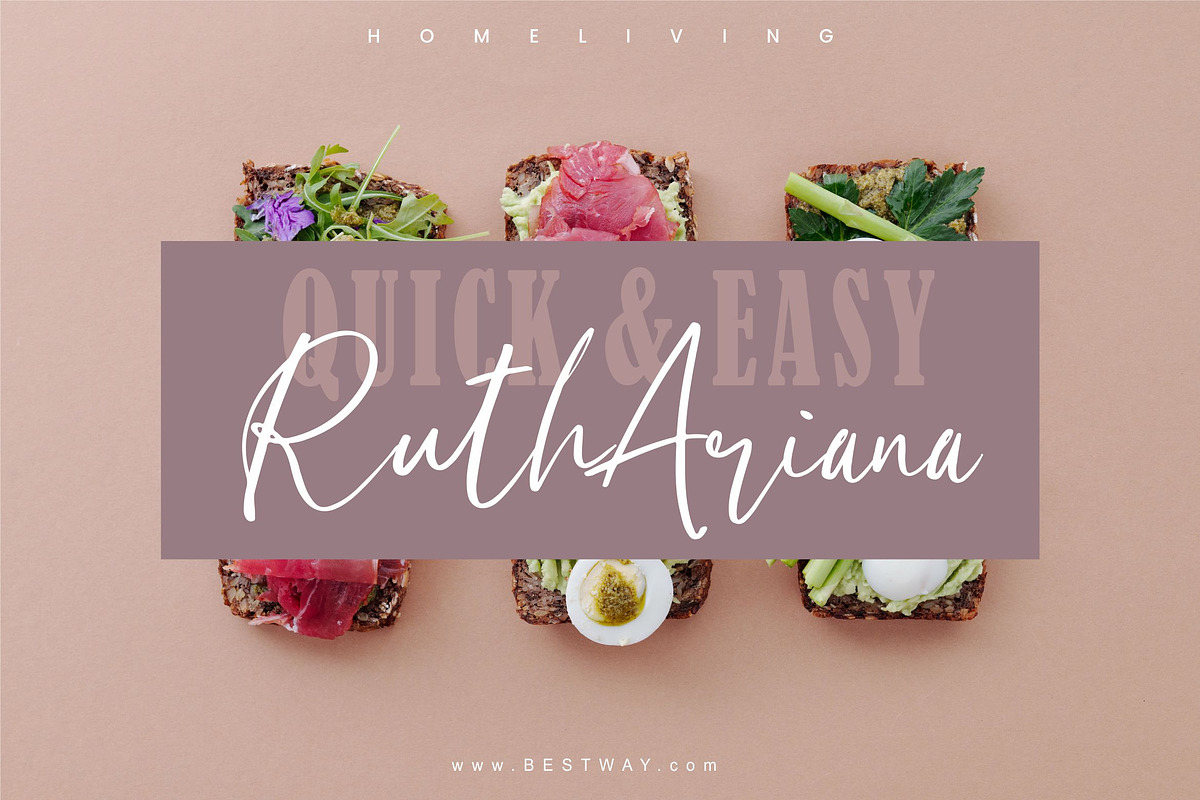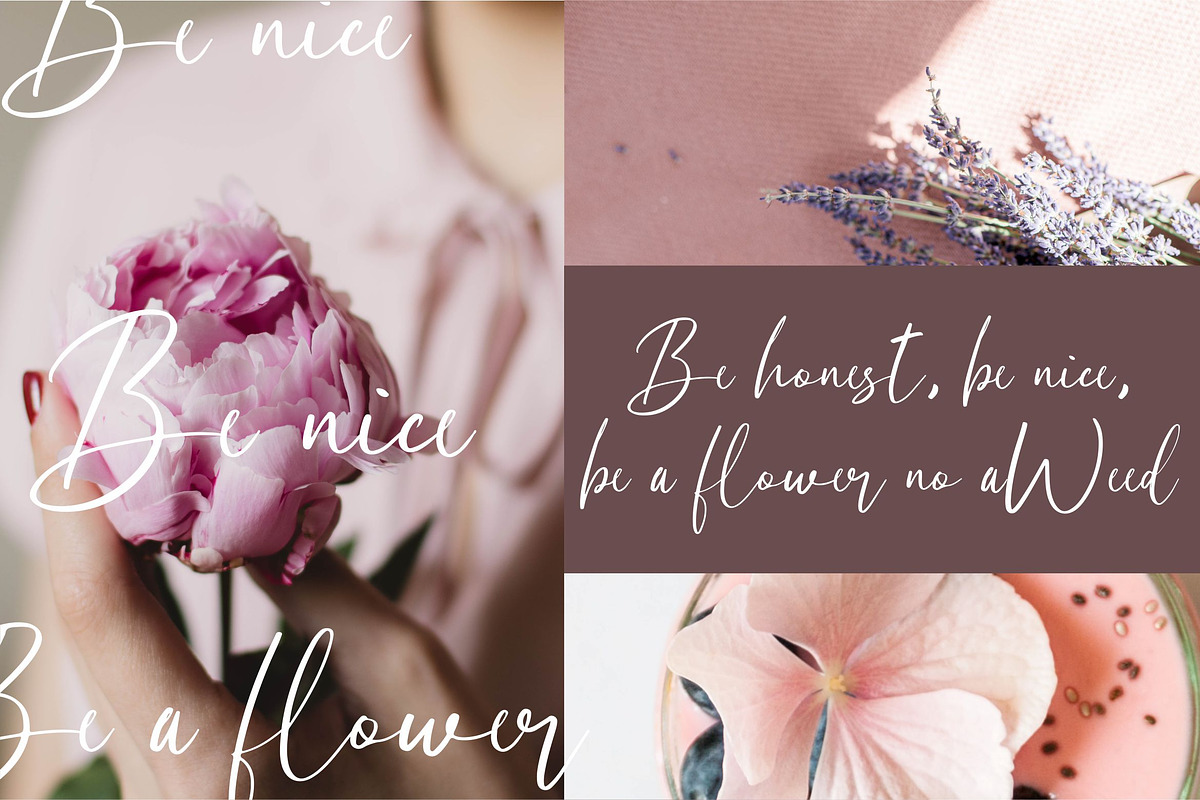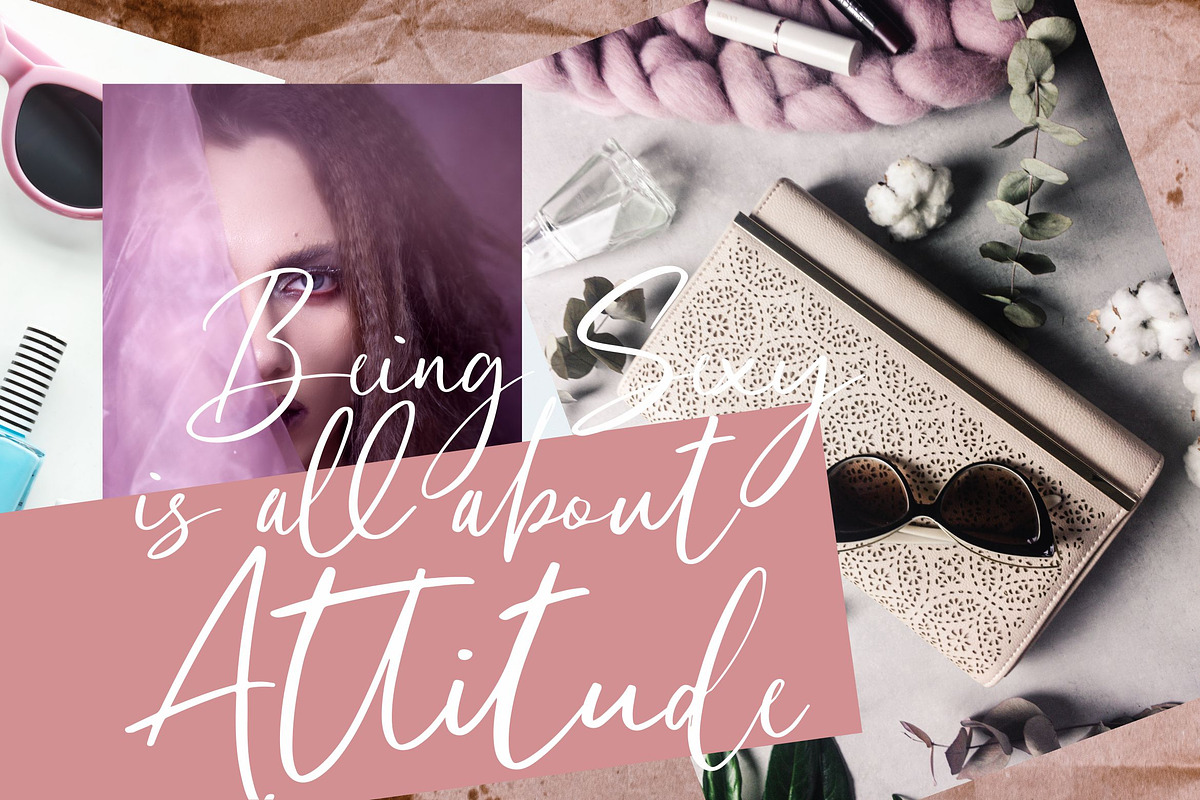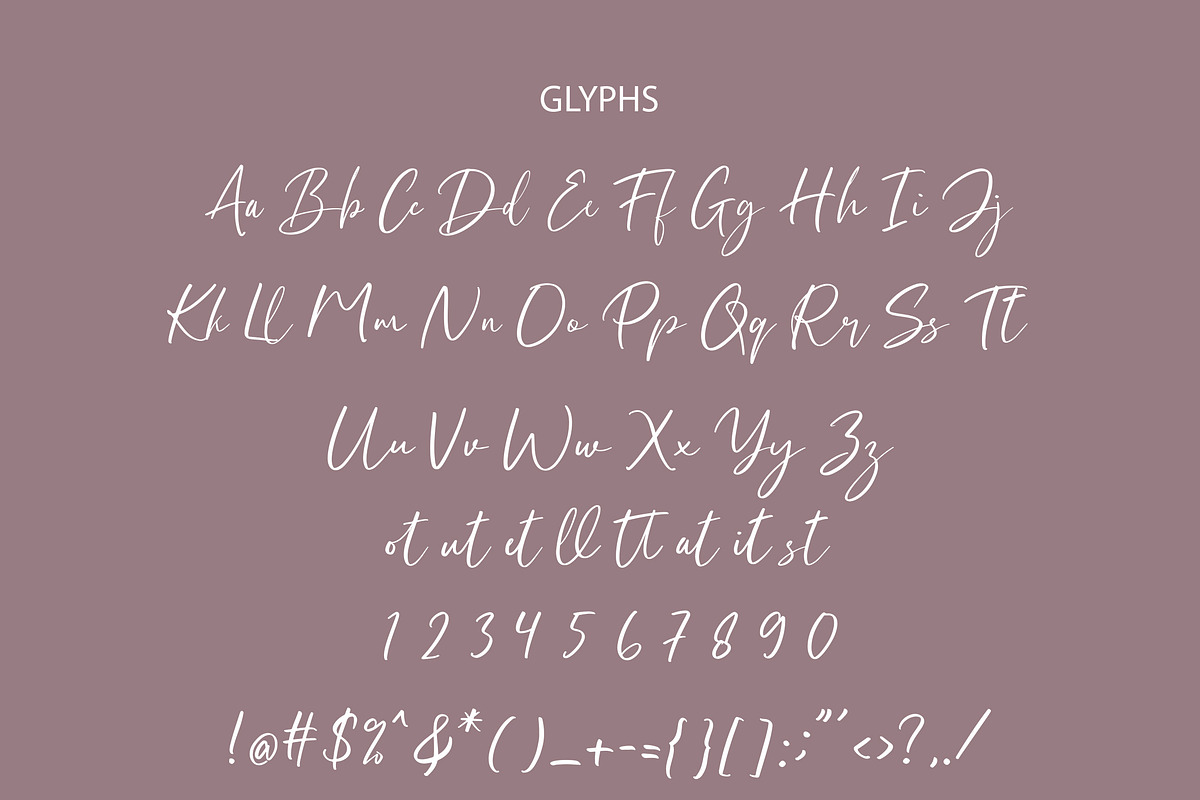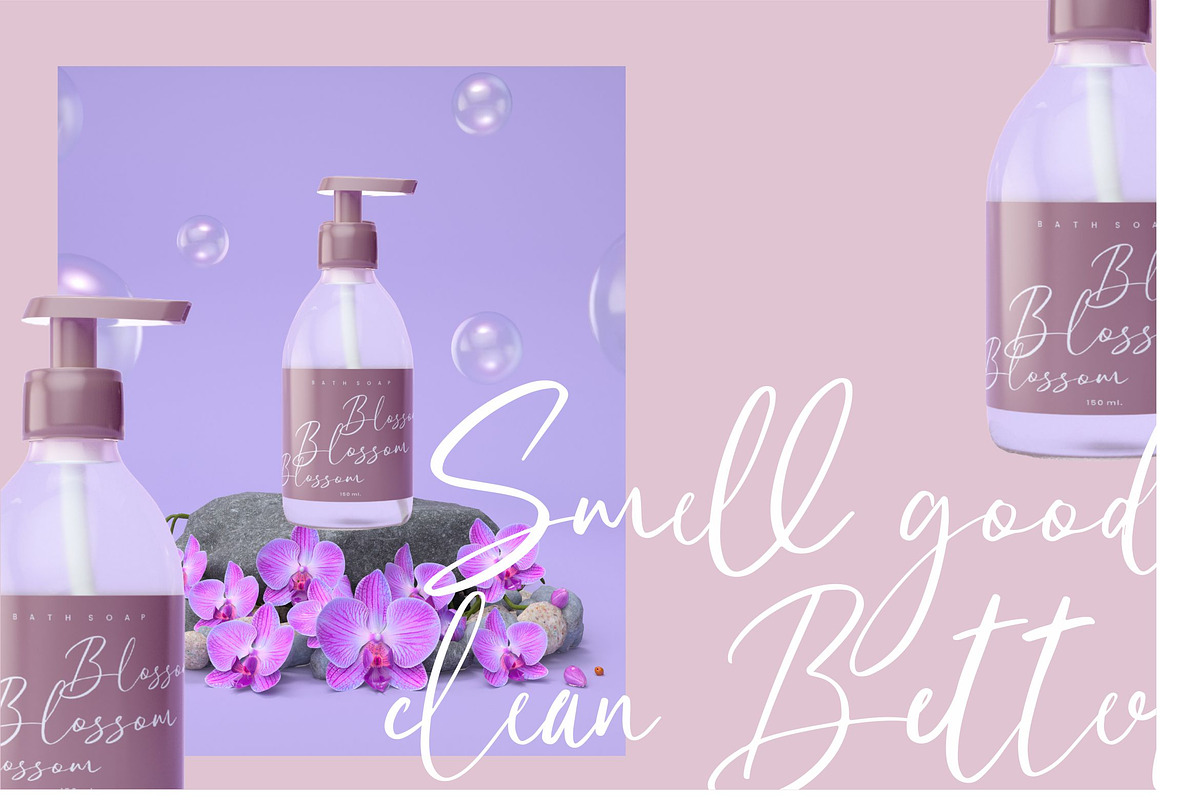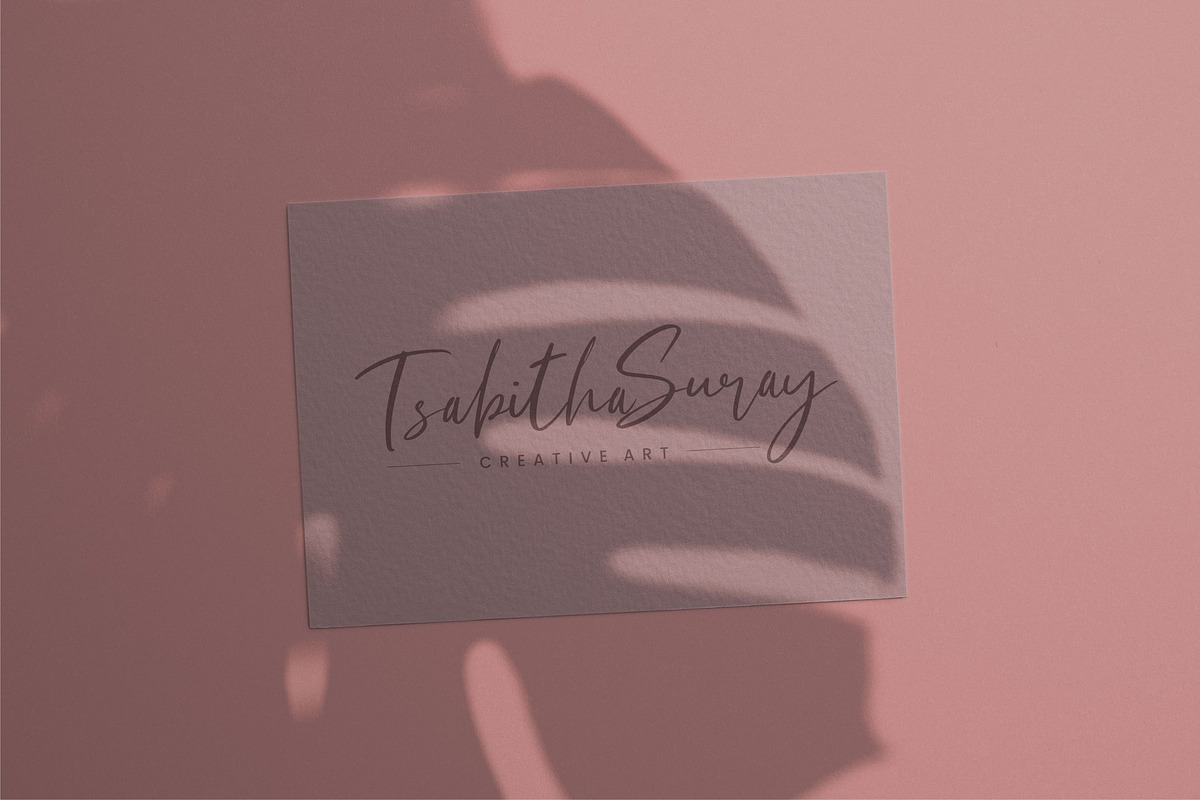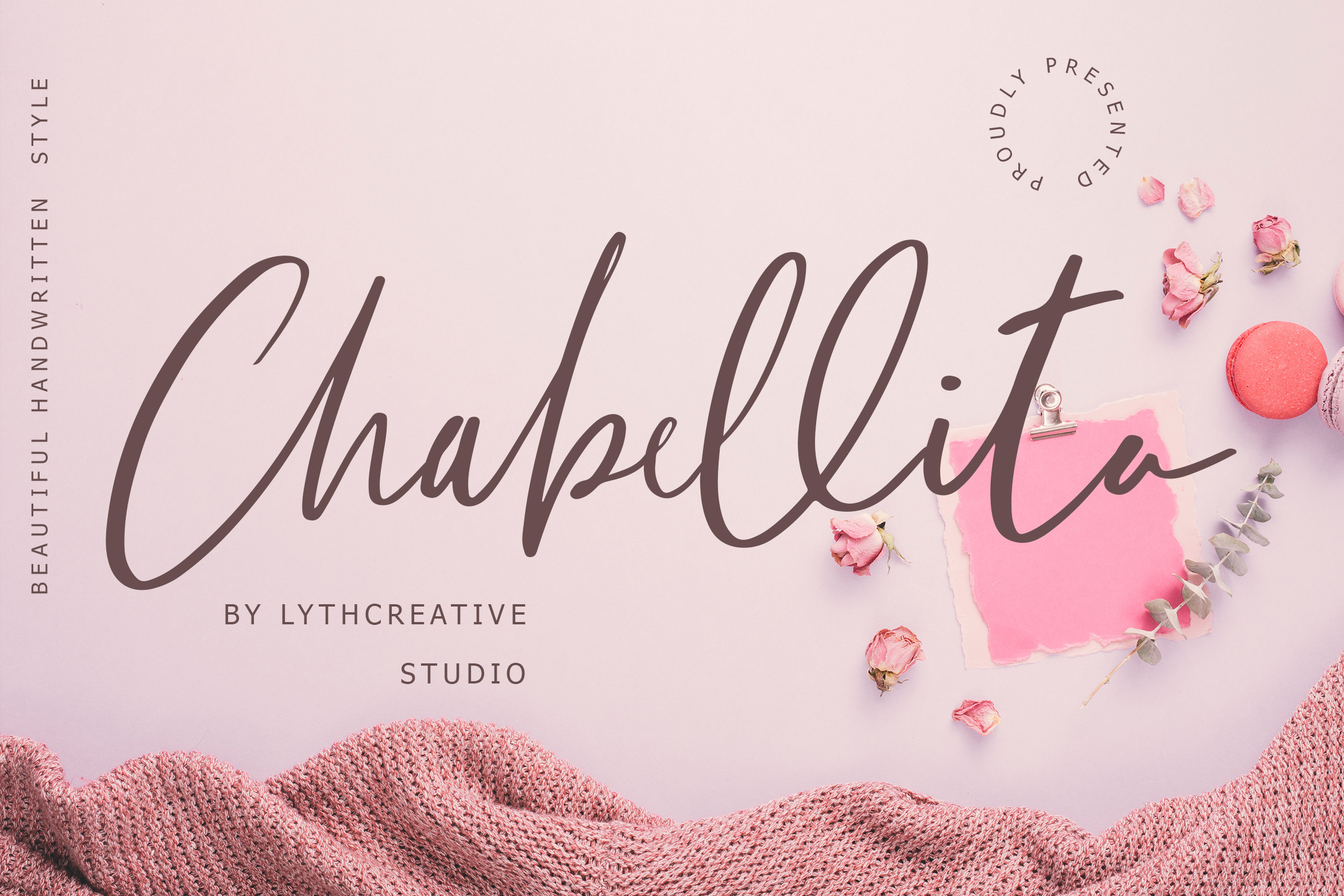
Chabellita Handwritten Font
Chabellita is a lovely modern handwritten font. It’s combining the cute style of calligraphy with a more modern style.
Chabellita can be used for various purposes such as logos, wedding invitations, t-shirts, letterheads, signage’s, labels, and much more!